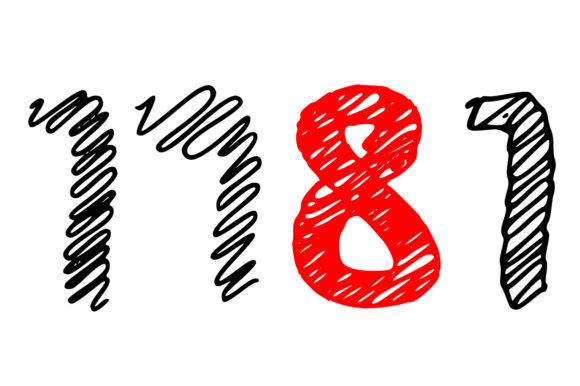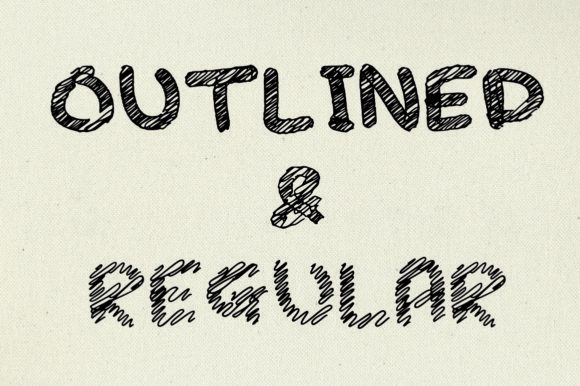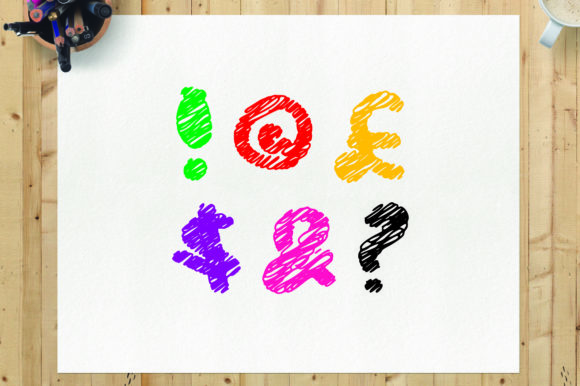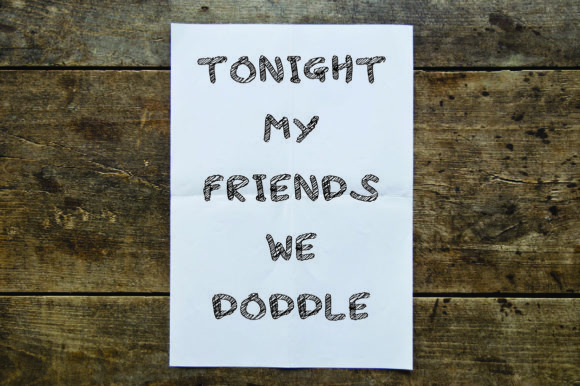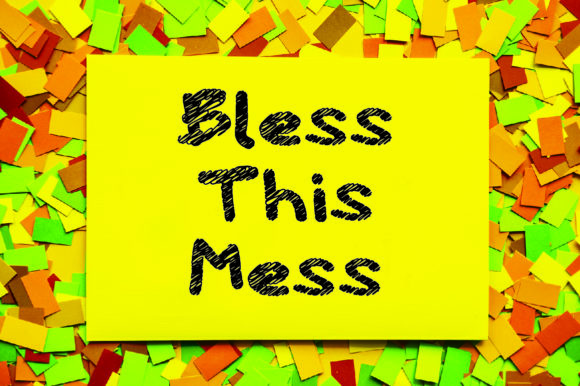
HomeScript FontsIscribble Font Script Fonts Iscribble Font FacebookXPinterestWhatsApp Iscribble Font Poster 2 Iscribble Font Poster 3 Iscribble Font Poster 4 Iscribble Font Poster 5 Iscribble Font Poster 6 About Iscribble Font Iscribble is a wacky and comical font with a whimsical feel. It will put a bold spin on any design project! DOWNLOAD NOW People also explored Khloe Font Hello Valentine Font Abelia New York Line Genus Septem Font Rainbow Unicorn Font Streamline Font Baby Cute Font Happy Hands Font 284 0 TagsIscribble Font Previous articleElmira FontNext articleUnique Surfer Font LEAVE A REPLY Cancel reply Comment: Please enter your comment! Name:* Please enter your name here Email:* You have entered an incorrect email address! Please enter your email address here Website: Save my name, email, and website in this browser for the next time I comment. Personal Use Free Blast Personal Use Free Read more about this font Handayani Personal Use Free Read more about this font Morning Miow Personal Use Free Read more about this font Frozdotre Personal Use Free Read more about this font BLOG Exploring Font Trends Shaping Communication in the Digital Era Fonts, like all design elements, are subject to trends. They play a crucial role in communicating a brand's personality,... How to Install and Use Fonts on Windows, macOS, and Web Projects Best Fonts for YouTube Videos: Make Your Thumbnails Stand Out Top 7 Google Fonts Alternatives for Faster and Privacy-Friendly Web Design (2025)